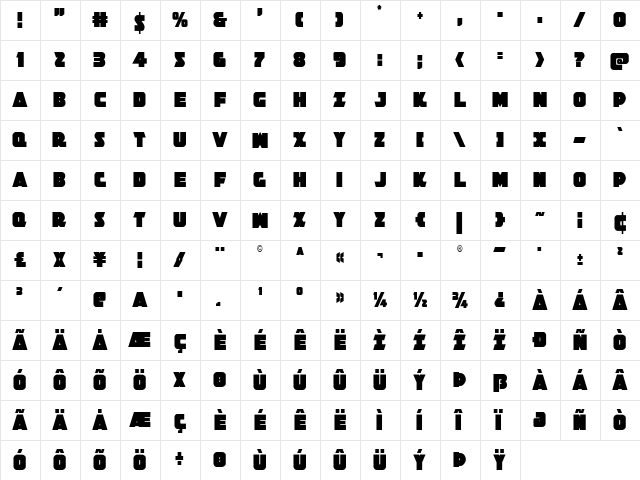
Jedi Special Forces Condensed Condensed
Design Context for Jedi Special Forces Condensed Typeface
Jedi Special Forces Condensed has the bold swagger of sports branding: strong, assertive letterforms designed to dominate headlines and jerseys alike. The condensed width makes it efficient for tight spaces without sacrificing legibility.
A natural choice for gym brands, fantasy sports, jersey lettering, and action-driven headlines.
Pro Tip: Use Jedi Special Forces Condensed in all-caps headlines where its athletic energy can fully express itself. Pair with a solid, simple sans for supporting text.